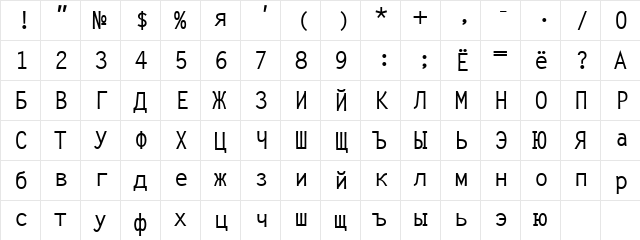
Cyrillic7SSK Regular
Design Context for Cyrillic7SSK Typeface
Cyrillic7SSK takes a measured approach to typography — its balanced proportions and neutral character make it a reliable workhorse for both digital and print work.